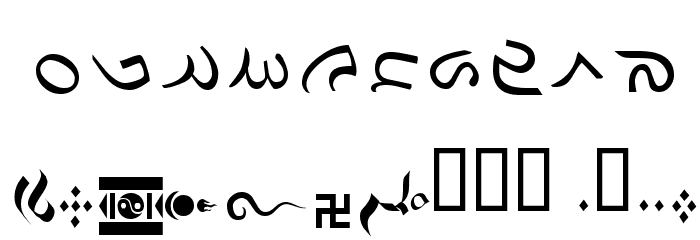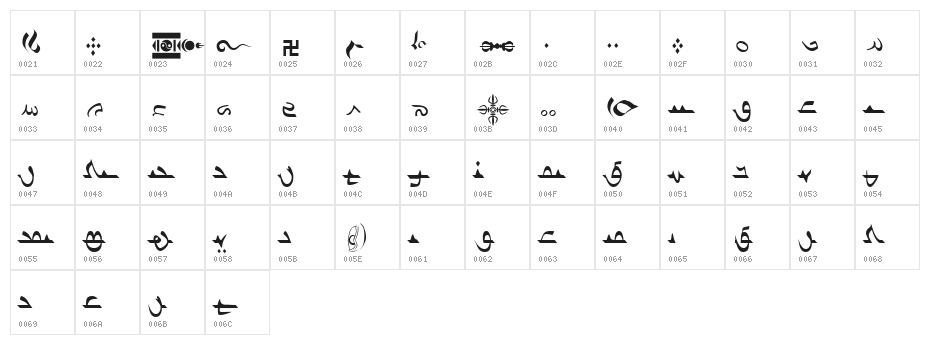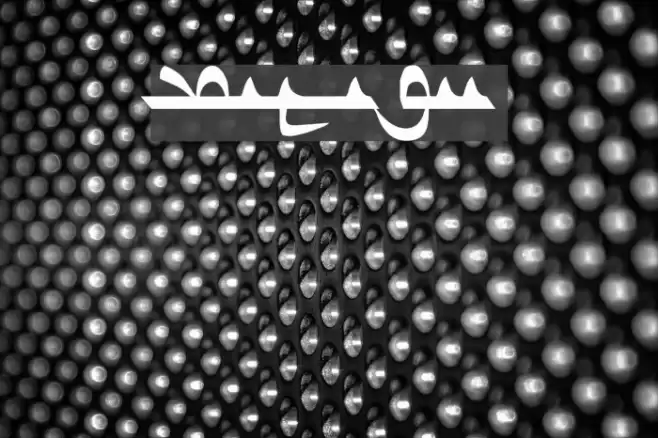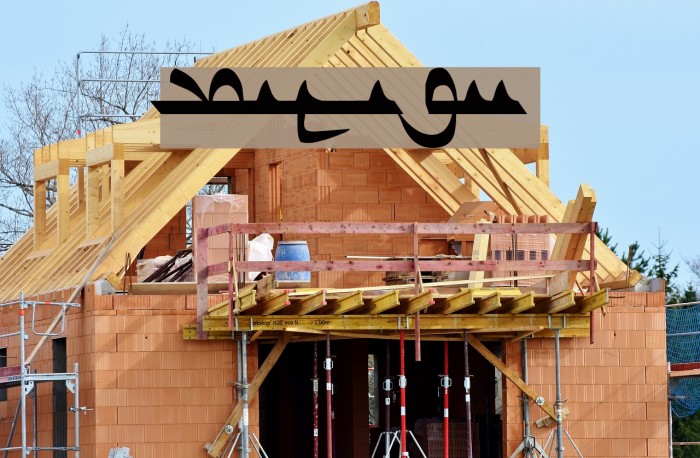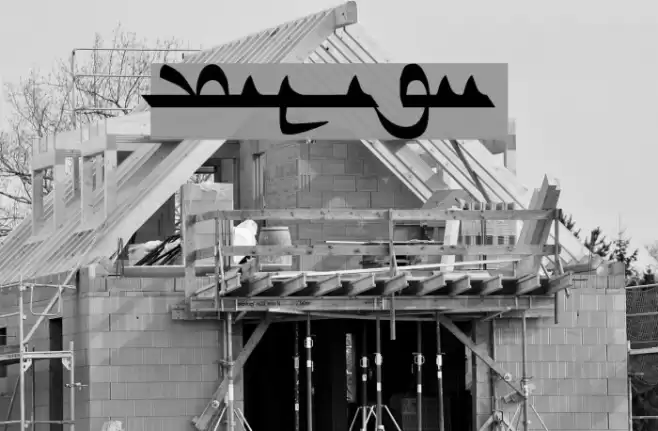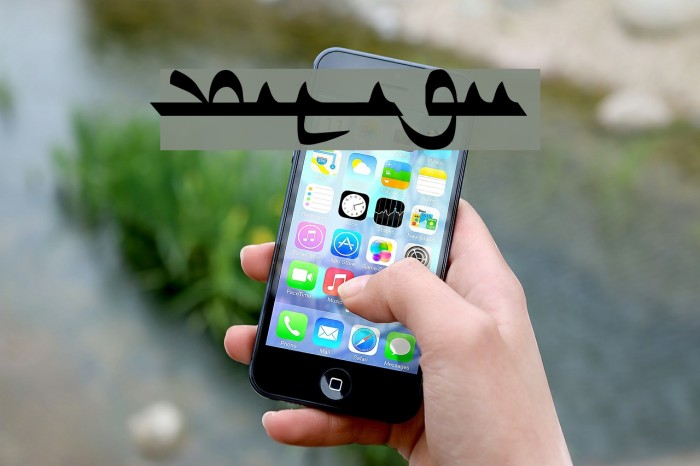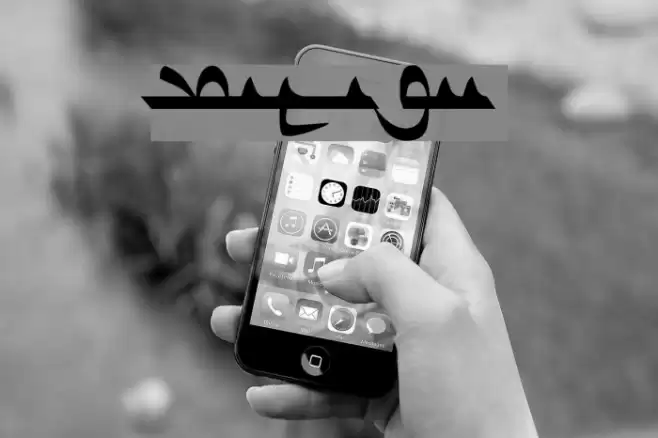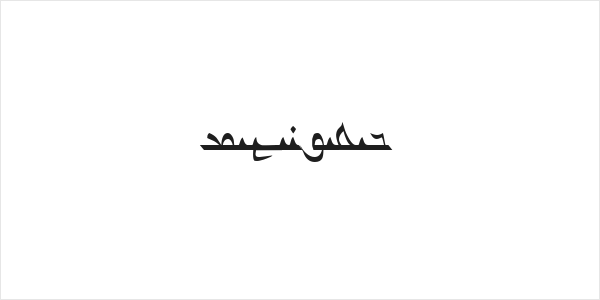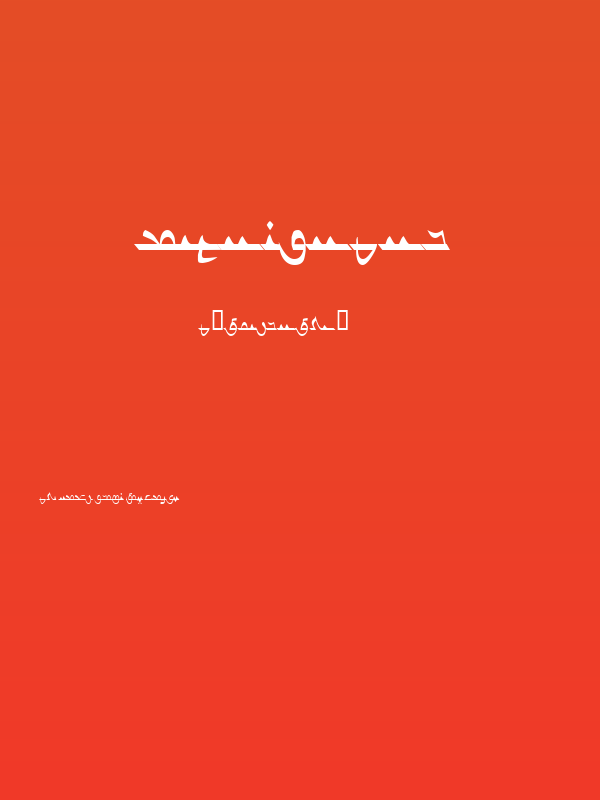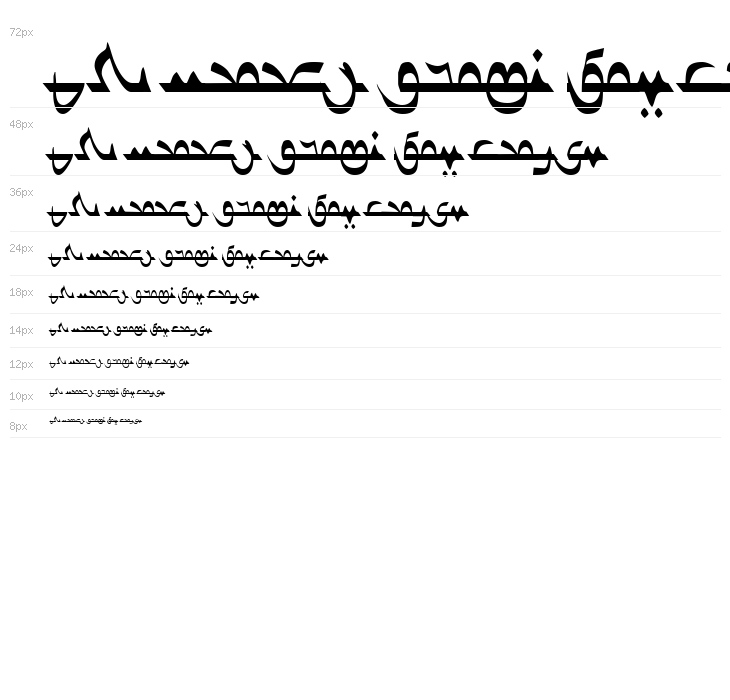
Ulanbatar Font
Ulanbatar Description
This font features a highly decorative and stylized design, reminiscent of traditional Mongolian script. The characters are interconnected with flowing lines and curves, creating a sense of movement and fluidity. The strokes are bold and prominent, with a high contrast between thick and thin lines. This font is visually striking and captures an exotic and cultural essence, making it suitable for artistic and thematic projects. The unique shapes and forms of the letters give it a distinct personality, making it stand out in any design.
| Use Case | Logos, Posters, Artistic Designs |
| Proposed Projects | Ideal for cultural posters, artistic projects, themed events, and decorative purposes. |